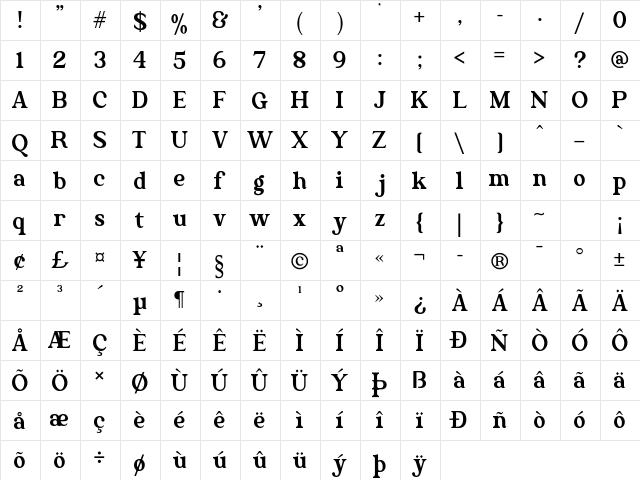
The Texterius Regular
| Foundry | Kong Font |
| Designer | Kong Font |
Design Context for The Texterius Typeface
The Texterius offers clean, dependable letterforms without strong stylistic allegiance, making it a practical choice for designers who need flexibility.